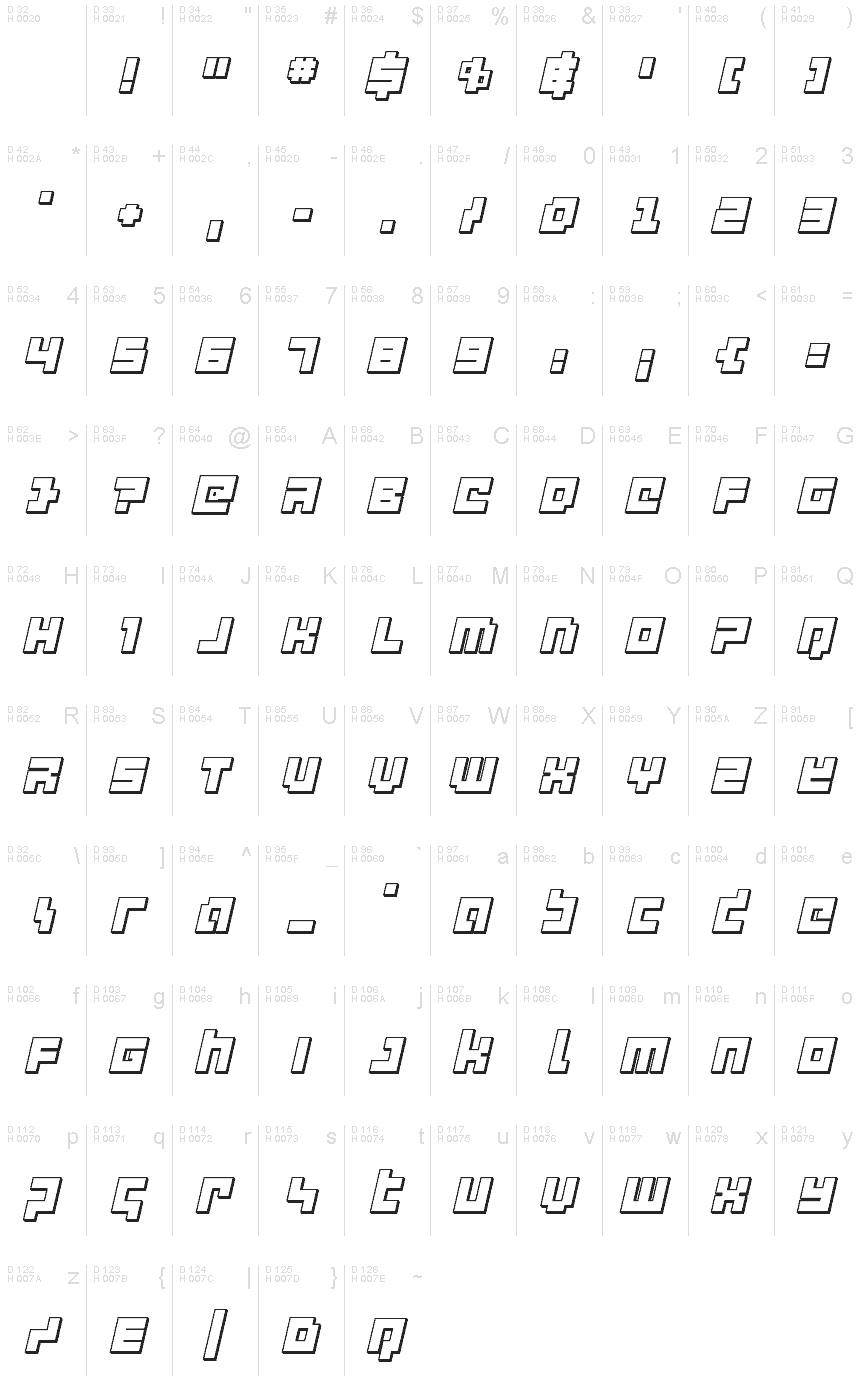
Deep Data Cube 3D Italic font by Iconian Fonts is a display typeface that impresses with its tech-inspired design. The bold, geometric letters have a structured appearance with the unique 3d cubic effect. It offers an experimental vibe and features a clean and modern appeal. Free and versatile, it can be part of your next exciting project.
Add futuristic elements to your posters, headings, signage, packaging designs, stickers, apparels, game interfaces and any printed or digital display creation. Players will love the vibe it brings to logos, games and especially text features in science fiction books; set it as headlines for magazines or newspapers if you like!